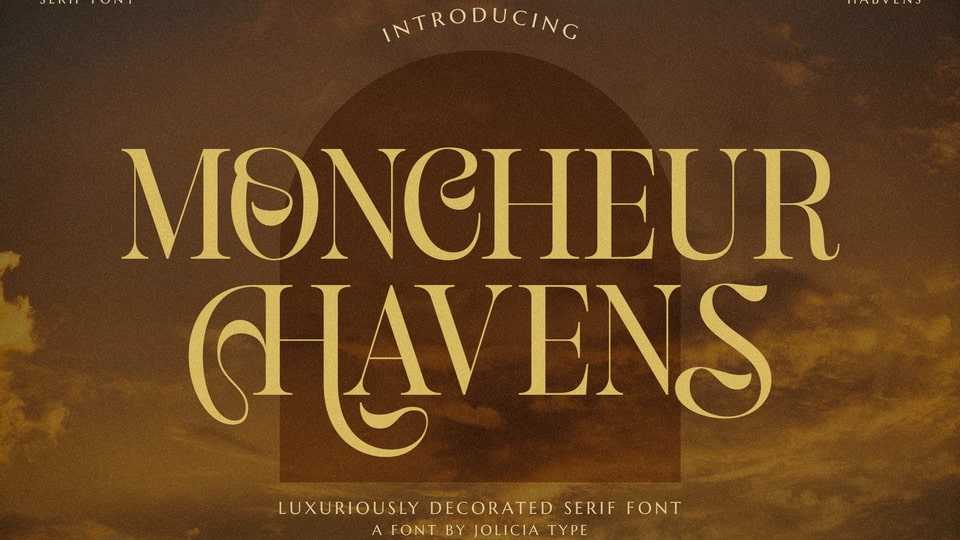
Download Moncheur Havens font, an elegant serif typeface that exudes classic sophistication with a modern twist designed to add a touch of luxury to any design.